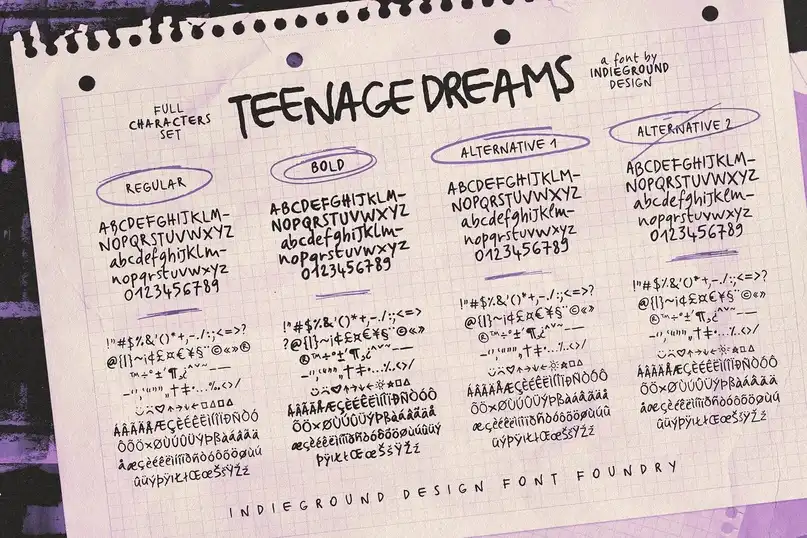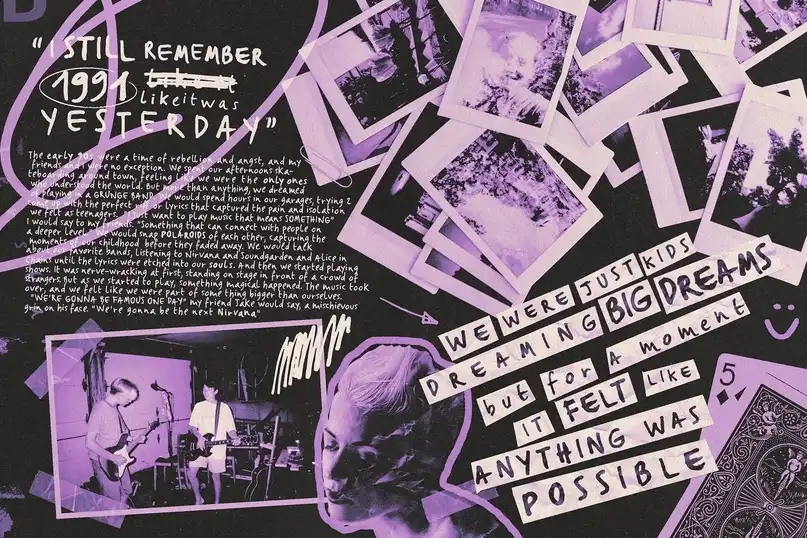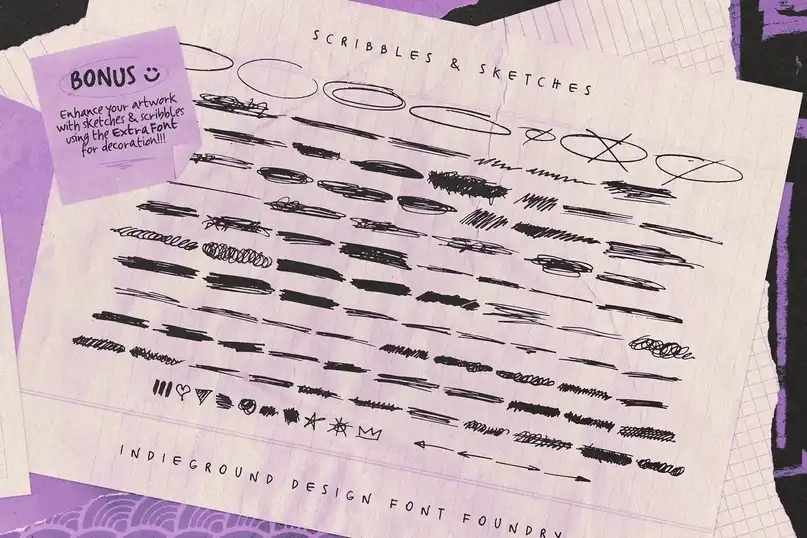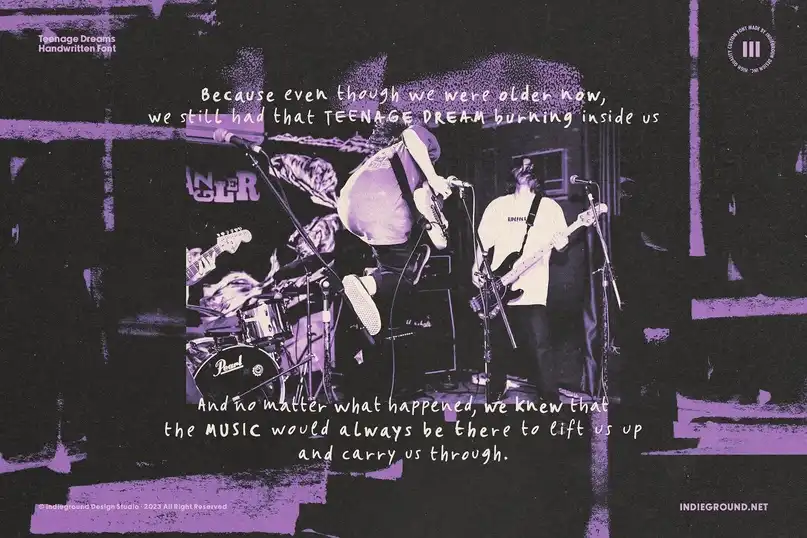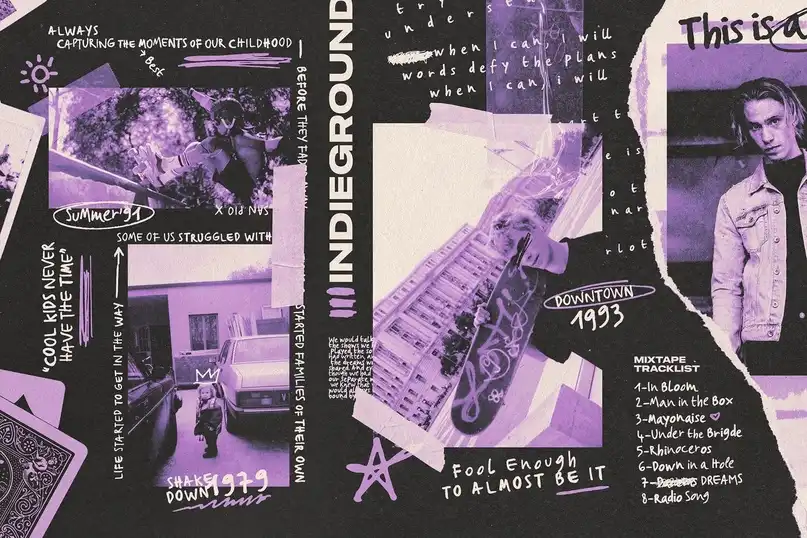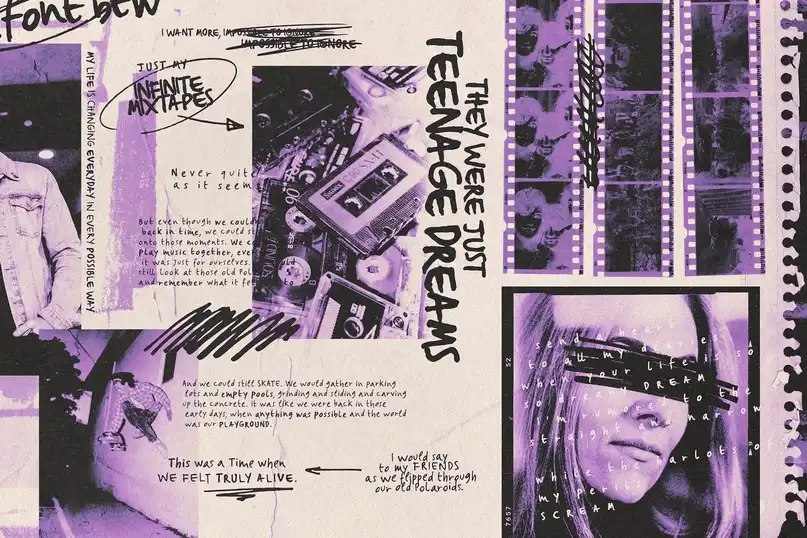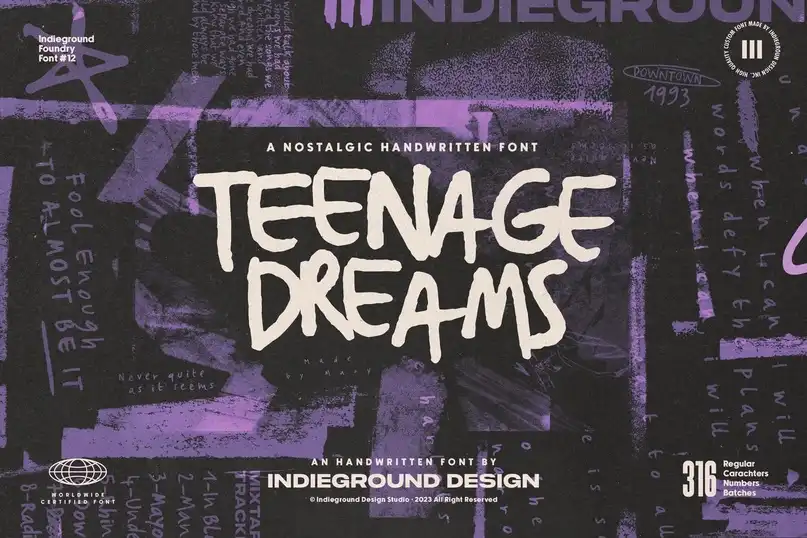
Bring Your Designs to Life with Teenage Dreams Font!
This digital download features the Teenage Dreams Font by Indieground, a delightful handwritten typeface that brings a wave of 90s nostalgia to your creative projects! 🎨✨ With instant access, you can dive right into crafting unique designs that evoke memories of carefree teenage days filled with music, laughter, and creativity.
The Teenage Dreams Font is perfect for anyone looking to capture the essence of the 90s. This grungy yet playful font adds a touch of spontaneity and style, making it ideal for a variety of projects—from scrapbooking to digital art. Imagine the dreamy typography you can create, reminiscent of the iconic teenage dream themes explored in pop culture! 🌈💖
- Multiple Versions: Mix and match 4 different styles to create a realistic handwritten effect in your designs.
- Bonus Scribbles: Includes a 5th version with fun scribbles and drawings for an added grungy scrapbook effect.
- Versatile Use: Perfect for dark, noisy backgrounds or overlaying on images and photographs for a striking look.
This font is a fantastic choice for:
- Graphic designers looking to add a nostalgic touch to their work.
- Scrapbookers wanting to create unique layouts.
- Anyone working on projects inspired by the 90s culture, music, and aesthetics.